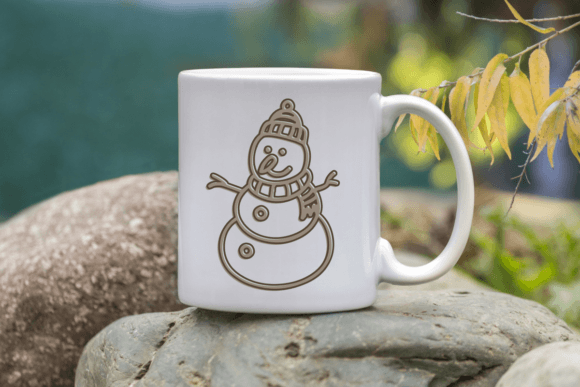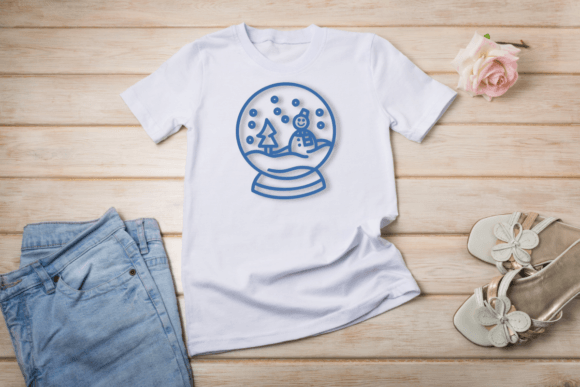
Introduction to Season Winter Font
As the snowflakes gently fall outside your window, you find yourself curled up with a warm cup of hot cocoa, brainstorming ideas for your next creative project. The cozy atmosphere sparks your imagination, and you can’t help but envision the perfect winter wonderland design. It’s moments like these that make us appreciate the beauty of winter, and the right font can make all the difference.
That’s where the Season Winter Font comes in – a delightful dingbat font that captures the essence of winter in all its glory. With its adorable images of snowflakes, mittens, ice skates, hot cocoa mugs, and snowmen, this font is the perfect addition to any design project that needs a touch of winter magic.
Whether you’re working on a holiday card, a winter-themed poster, or a simple social media graphic, the Season Winter Font is a valuable resource that will elevate your designs to the next level. With its high-quality images and transparent background, you can easily incorporate this font into your creative project and add a professional touch.
Key Features of Season Winter Font
- High-quality design resource for creative projects, offering a unique and elegant touch.
- Features a transparent background, making it easy to use in different design scenarios.
- Designed with a focus on seasonal themes, perfect for winter-themed projects and designs.
- Available in a single font size, with a resolution of 300 DPI for high-quality printing and digital use.
- Ideal for use in digital and print media, including posters, flyers, and business cards.
Honest Review: Season Winter Font
As a designer, I’m always on the lookout for high-quality fonts to elevate my creative projects. The Season Winter Font is one of the latest additions to my design resource library, and I’m excited to share my honest review with you.
- ✨ High-quality design: The Season Winter Font features crisp, clean lines and a beautiful, intricate design that’s perfect for winter-themed projects.
- ✨ Transparent background: This font has a transparent background, making it easy to layer over images or other design elements.
- ⚠️ Limited font styles: While the Season Winter Font is a beautiful addition to any design project, it’s limited to a single style.
- ⚠️ Not ideal for large-scale projects: While the font is high-quality, it may not be the best choice for large-scale projects where a more versatile font is needed.
Overall, I’m impressed with the Season Winter Font. It’s a beautiful, high-quality design resource that’s perfect for winter-themed projects. While it may have some limitations, it’s an excellent choice for designers looking for a unique and eye-catching font.
To get the most out of Season Winter Font, use it in creative projects that require a high-quality, winter-themed font. Experiment with different font sizes, colors, and combinations to create unique designs. Consider using it in conjunction with other design resources to enhance your project.
Season Winter Font is commonly used in holiday-themed designs, winter sports marketing materials, and outdoor advertising. It is also used in social media graphics, brochures, and flyers. With its high-quality design and transparent background, Season Winter Font is a valuable design resource for any creative project.